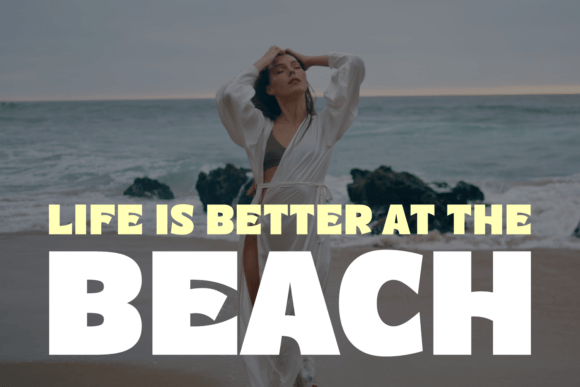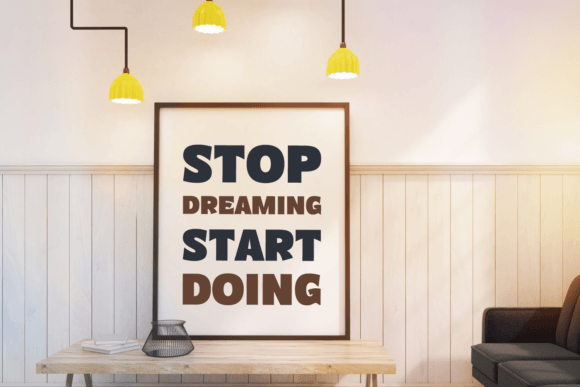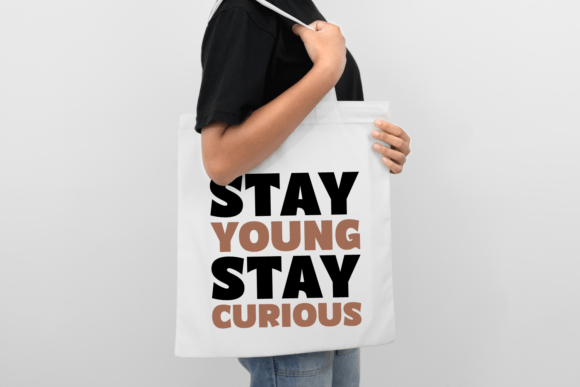
The Fiesta Bold Font: A Vibrant, Modern Sans-Serif for Impactful Designs
I still remember the time I was working on a project for a lively event, and I just couldn’t find the right font to capture its energetic vibe. My client wanted something bold, modern, and attention-grabbing, but not too over-the-top. After hours of browsing through font libraries, I stumbled upon Fiesta Bold, and it was love at first sight! ✨ With its clean lines, bold structure, and playful elegance, it perfectly embodied the spirit of the event. In this article, I’ll share my experience with Fiesta Bold, its features, and how to make the most of it in your designs.
An Honest Review of Fiesta Bold
- ✨ Vibrant and energetic feel: Fiesta Bold exudes confidence and modernity, making it perfect for headlines, logos, and branding.
- ✅ Clean lines and bold structure: The font’s sleek design ensures it stands out in any design, from digital to print.
- 🎉 Playful elegance: Fiesta Bold strikes a great balance between sophistication and playfulness, making it ideal for a wide range of creative projects.
While Fiesta Bold is an excellent font, there are a few minor considerations to keep in mind: 🤔
- ⚠️ Limited use in body text: Due to its bold nature, Fiesta Bold might not be the best choice for lengthy body text. It’s better suited for headings and titles.
- ⚠️ Some glyphs may require manual adjustment: Depending on the design, you might need to tweak certain glyphs for optimal spacing and alignment.
The Designer Inspiration Behind Fiesta Bold
Fiesta Bold was designed with the goal of creating a modern, energetic font that captures the essence of vibrant celebrations and events. Its creator drew inspiration from the world’s most lively festivals, combining bold structures with playful elegance. The result is a font that’s both eye-catching and sophisticated.
Q: What type of projects is Fiesta Bold best suited for?
A: Fiesta Bold is perfect for projects that require a bold, modern, and attention-grabbing font, such as event branding, logos, headlines, and titles.
Q: Can I use Fiesta Bold for body text?
A: While Fiesta Bold can be used for short paragraphs, it’s not ideal for lengthy body text due to its bold nature. It’s better suited for headings and titles.
Q: Does Fiesta Bold support OpenType features?
A: Yes, Fiesta Bold supports OpenType features like ligatures, stylistic alternates, and glyphs, which can enhance your design and add more flair.
Q: Is Fiesta Bold suitable for digital and print designs?
A: Absolutely! Fiesta Bold’s clean lines and bold structure make it suitable for both digital and print designs, from social media graphics to posters and flyers.